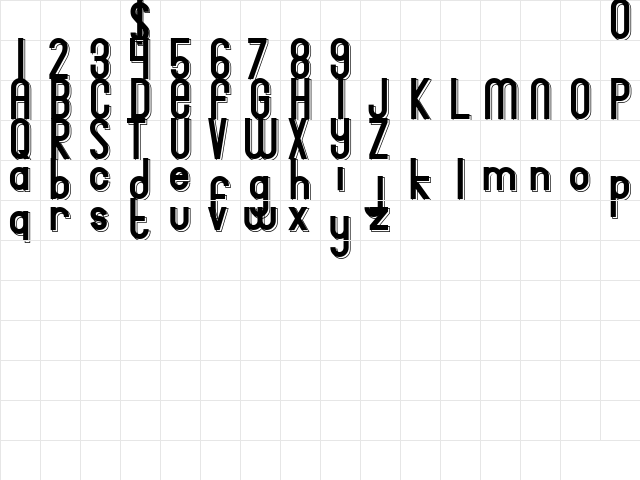
Bingke Kacang Ijo DEMO Regular
Design Context for Bingke Kacang Ijo DEMO Typeface
Bingke Kacang Ijo DEMO offers clean, dependable letterforms without strong stylistic allegiance, making it a practical choice for designers who need flexibility.
Pro Tip: Use Bingke Kacang Ijo DEMO in both headline and body roles to test its range before committing to a single application.